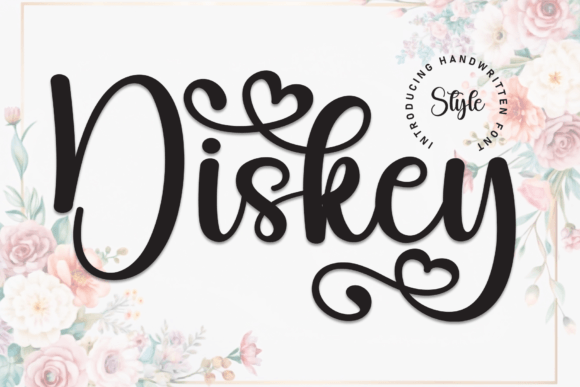
Diskey Font: The Ultimate Handwritten Display Font for Whimsical Designs
Are you looking for a font that can add a touch of warmth and friendliness to your creative designs? Look no further than Diskey Font, a charming handwritten display font that is perfect for lending a delightful touch of whimsy to your projects. With its adorable and playful aesthetic, Diskey Font is ideal for enhancing wedding invitations, cards, and a wide range of other creative projects.
The Enchanting Appeal of Diskey Font
Diskey Font is a beautifully crafted handwritten display font that exudes warmth and friendliness. Its enchanting appeal beckons onlookers, making it a charming tool for infusing your design with a sweet and joyous vibe. The font’s adorable and playful aesthetic is perfect for adding a touch of whimsy to your creative projects, making them stand out from the crowd.
One of the key features of Diskey Font is its unique and elegant design. The font’s handwritten style gives it a personal and intimate feel, making it perfect for use in wedding invitations, cards, and other personal projects. The font’s playful aesthetic also makes it ideal for use in children’s party invitations, birthday cards, and other fun and creative projects.
The Perfect Font for Creative Projects
Diskey Font is the perfect font for creative projects that require a touch of whimsy and personality. The font’s enchanting appeal and playful aesthetic make it ideal for use in a wide range of projects, including:
- Wedding invitations and cards
- Birthday cards and party invitations
- Greeting cards and postcards
- Social media graphics and posts
- Blog and website headers
Whether you’re a designer, artist, or DIY enthusiast, Diskey Font is the perfect tool for adding a touch of personality and whimsy to your creative projects.
The Benefits of Using Diskey Font
There are many benefits to using Diskey Font in your creative projects. Some of the key benefits include:
- Unique and eye-catching design: Diskey Font’s unique and elegant design makes it stand out from other fonts, adding a touch of personality and whimsy to your projects.
- Easy to read and understand: Despite its playful aesthetic, Diskey Font is easy to read and understand, making it perfect for use in a wide range of projects.
- Versatile and flexible: Diskey Font is a versatile and flexible font that can be used in a wide range of projects, from wedding invitations to social media graphics.
- High-quality and professional: Diskey Font is a high-quality and professional font that is perfect for use in both personal and commercial projects.
How to Use Diskey Font in Your Projects
Using Diskey Font in your projects is easy and straightforward. Here are a few tips for getting the most out of this beautiful font:
- Use it in combination with other fonts: Diskey Font pairs well with other fonts, making it perfect for use in combination with bold and sans-serif fonts.
- Experiment with different colors and textures: Diskey Font looks great in a wide range of colors and textures, so don’t be afraid to experiment and find the perfect combination for your project.
- Use it to add a personal touch: Diskey Font’s handwritten style makes it perfect for adding a personal touch to your projects, making them stand out from the crowd.
In conclusion, Diskey Font is a charming handwritten display font that is perfect for lending a delightful touch of whimsy to your creative designs. With its adorable and playful aesthetic, Diskey Font is ideal for enhancing wedding invitations, cards, and a wide range of other creative projects. Its enchanting appeal beckons onlookers, making it a charming tool for infusing your design with a sweet and joyous vibe.